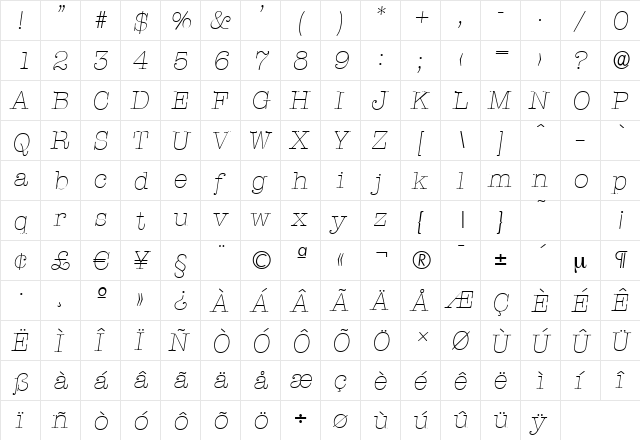
TypewriterSerial-Xlight Italic Font Preview
Design Context for TypewriterSerial-Xlight Typeface
TypewriterSerial-Xlight uses fixed-width spacing throughout, giving it the structured, systematic character associated with coding environments and technical documentation. The dynamic lean of this cut emphasises speed and emphasis in any layout. The delicate stroke weight brings airiness and refinement to layouts.
Pro Tip: Pair TypewriterSerial-Xlight with a proportional sans for UI contexts where code-style labels and regular body copy need to coexist.